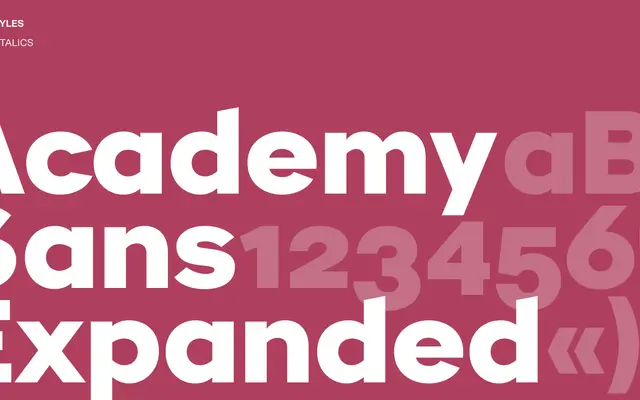
Academy Sans Expanded
An expanded-width sans from Playtype, designed for editorial and display use where wider letterforms are needed.
Academy Sans Expanded is a wide-cut sans-serif from Copenhagen foundry Playtype. The expanded proportions suit headlines and display settings where a broader, more open rhythm is desirable. Beyond the name and width variant, the page offers limited detail on weights, designer or release date.
The name and expanded width suggest a classical grotesque or geometric sans in an expanded cut; no further classification detail is available from the page content.